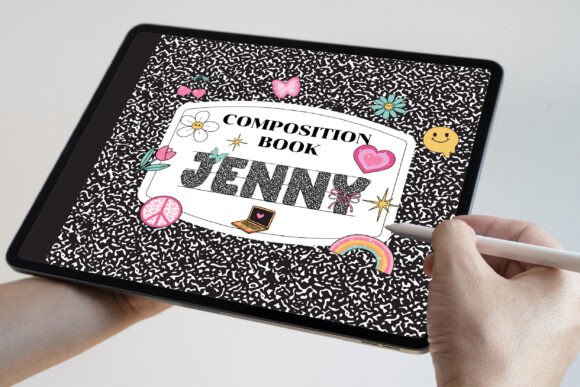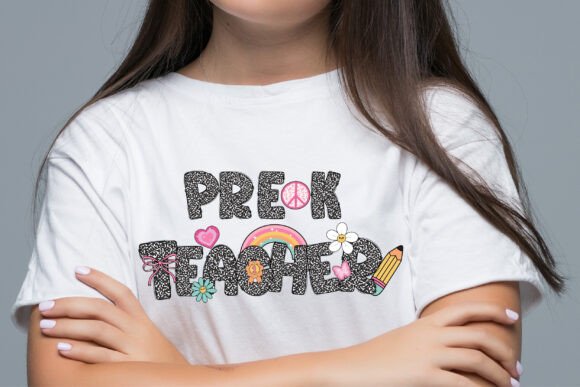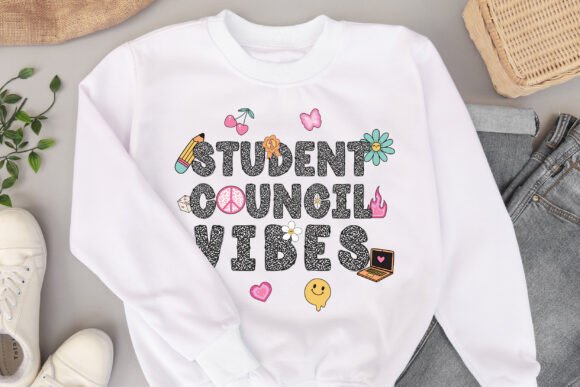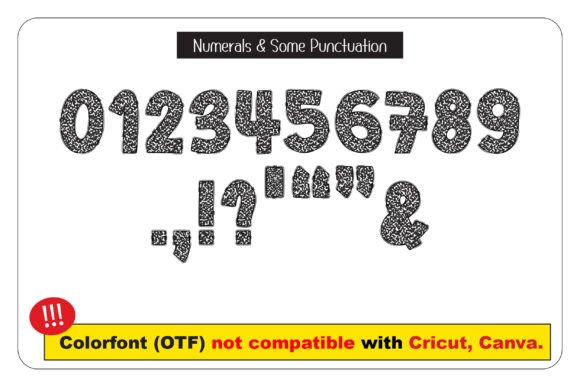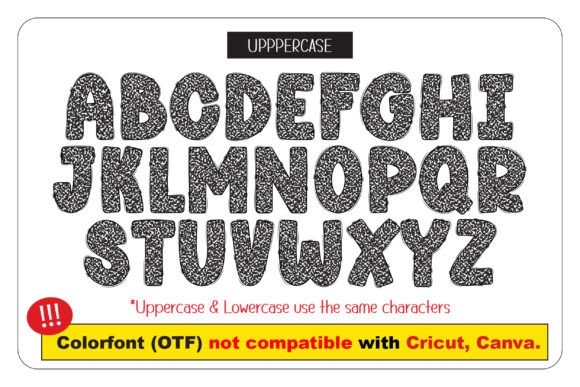
Unleash the Nostalgia: Composition Book Pattern Font
Do you remember flipping through the pages of your old composition book, the smell of fresh paper and the sound of scribbled notes filling the air? For many of us, composition books evoke memories of late-night studying, creative expression, and the joy of learning. Now, you can tap into that nostalgia with the “Composition Book Pattern Font”, a unique and playful typeface that brings the classic black-and-white composition book cover to life.
With 20 Y2K-style doodle cliparts adorning each letter, this font is perfect for adding a touch of vintage charm to modern projects. Whether you’re a designer, crafter, or student, the “Composition Book Pattern Font” offers endless possibilities for creative expression. From scrapbooks and posters to personalized gifts and classroom decorations, this font is sure to bring a smile to your face and a dash of fun to your work.
Composition Book Pattern Font Key Features
- Unique Characteristics: This font is designed to resemble handwriting and features a distressed, scribbled look, evoking the feeling of a composition book.
Designer Review: Composition Book Pattern Font
Overall, I have mixed feelings about the Composition Book Pattern Font. While it has its unique charm, it’s not without its limitations. ✨ Here are a few things that work well:
- The font has a nostalgic feel to it, reminiscent of old notebooks and journals.
- It’s perfect for projects that require a handwritten or vintage look.
- The font is highly customizable, with a wide range of styles and sizes available.
However, there are some limitations that might make it less suitable for certain projects. ⚠️ Here are a few things to consider:
- The font can be quite busy, making it difficult to read in large blocks of text.
- The design is not particularly versatile, making it less suitable for modern or minimalist designs.
Overall, I would recommend the Composition Book Pattern Font for projects that require a specific, nostalgic look. However, for more general or modern designs, you may want to consider other options.
The Composition Book Pattern Font is perfect for:
Creating a nostalgic or vintage aesthetic.
Designing educational materials, such as workbooks or study guides.
Adding a playful touch to marketing materials or social media graphics.